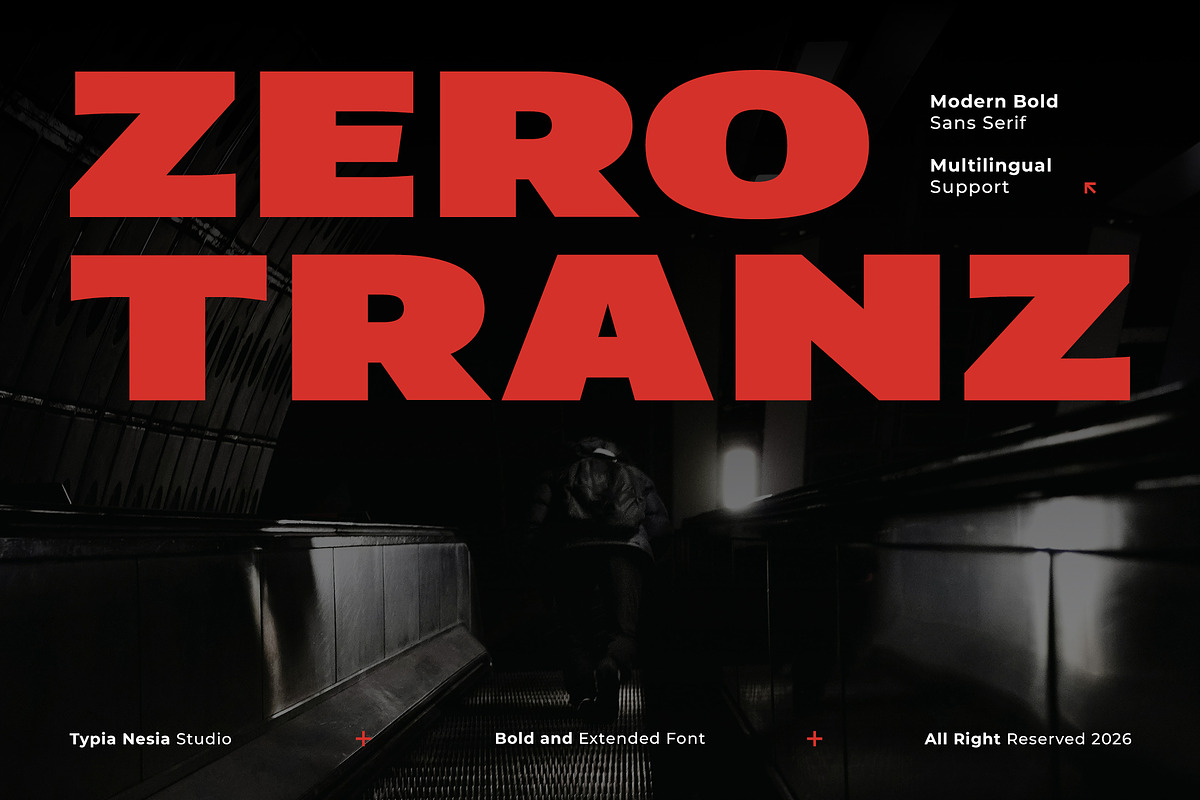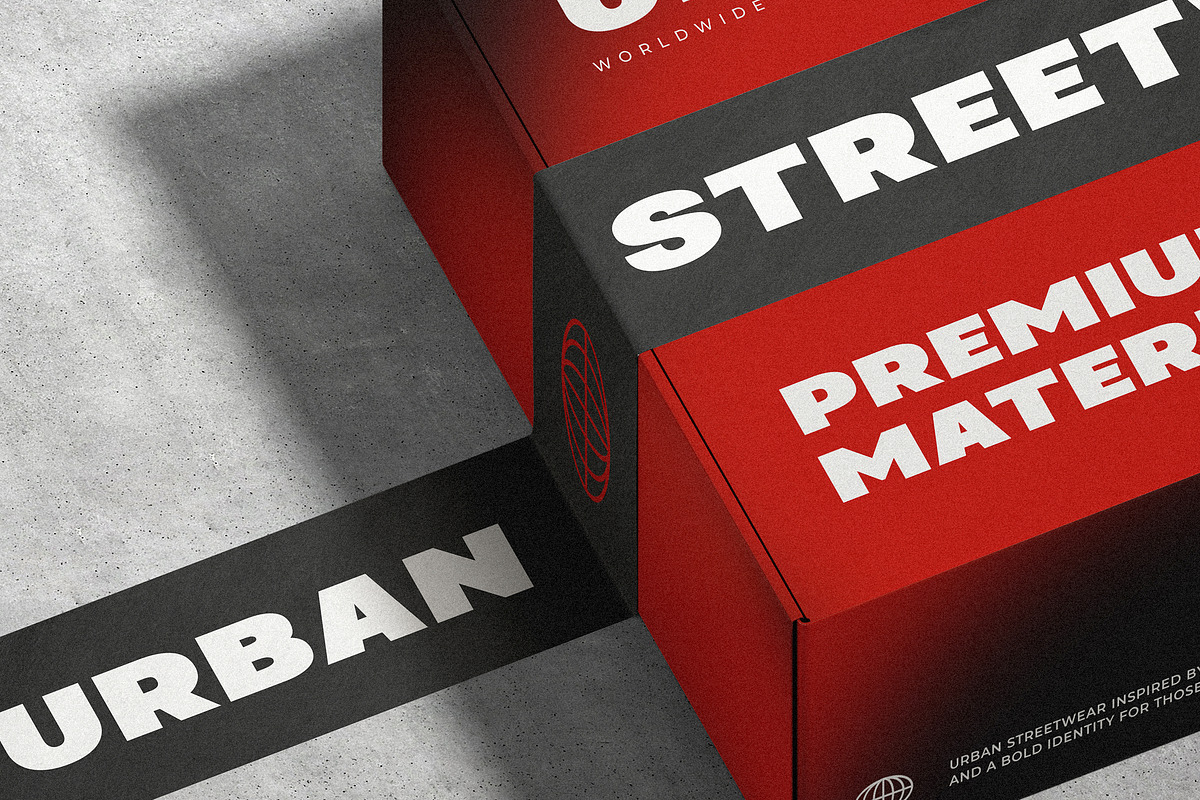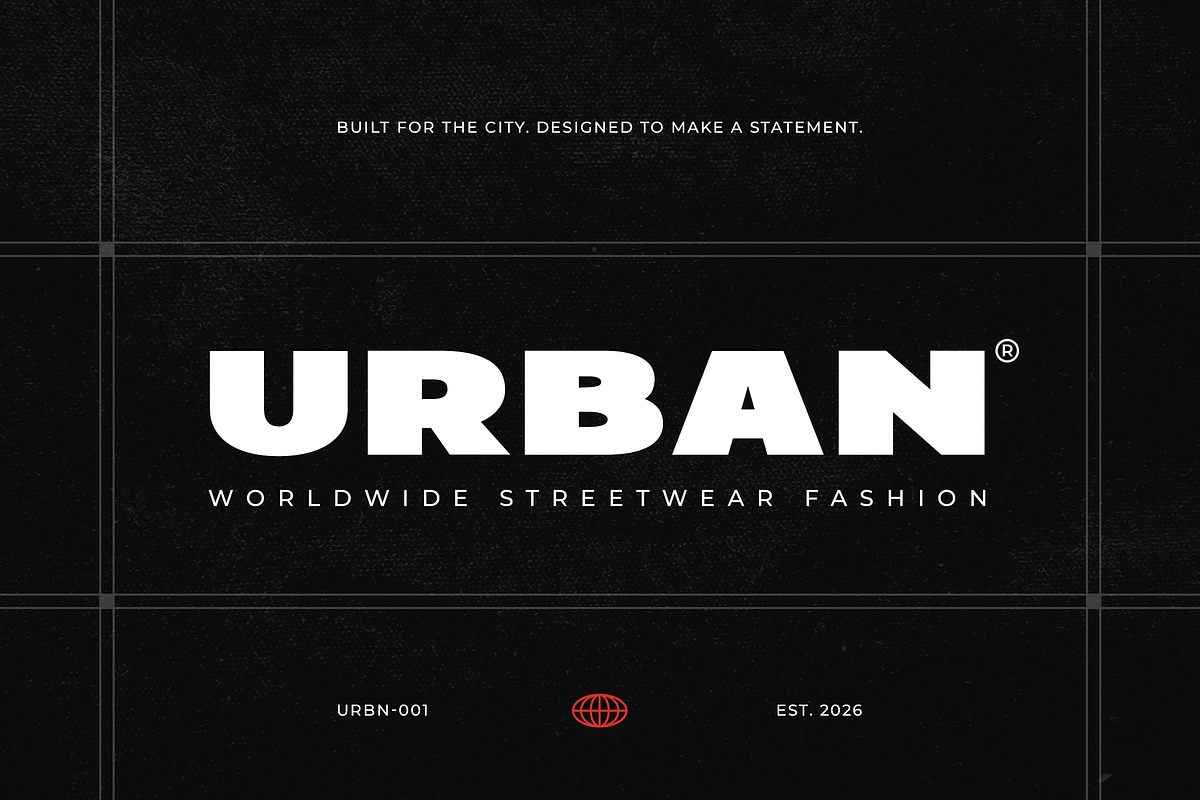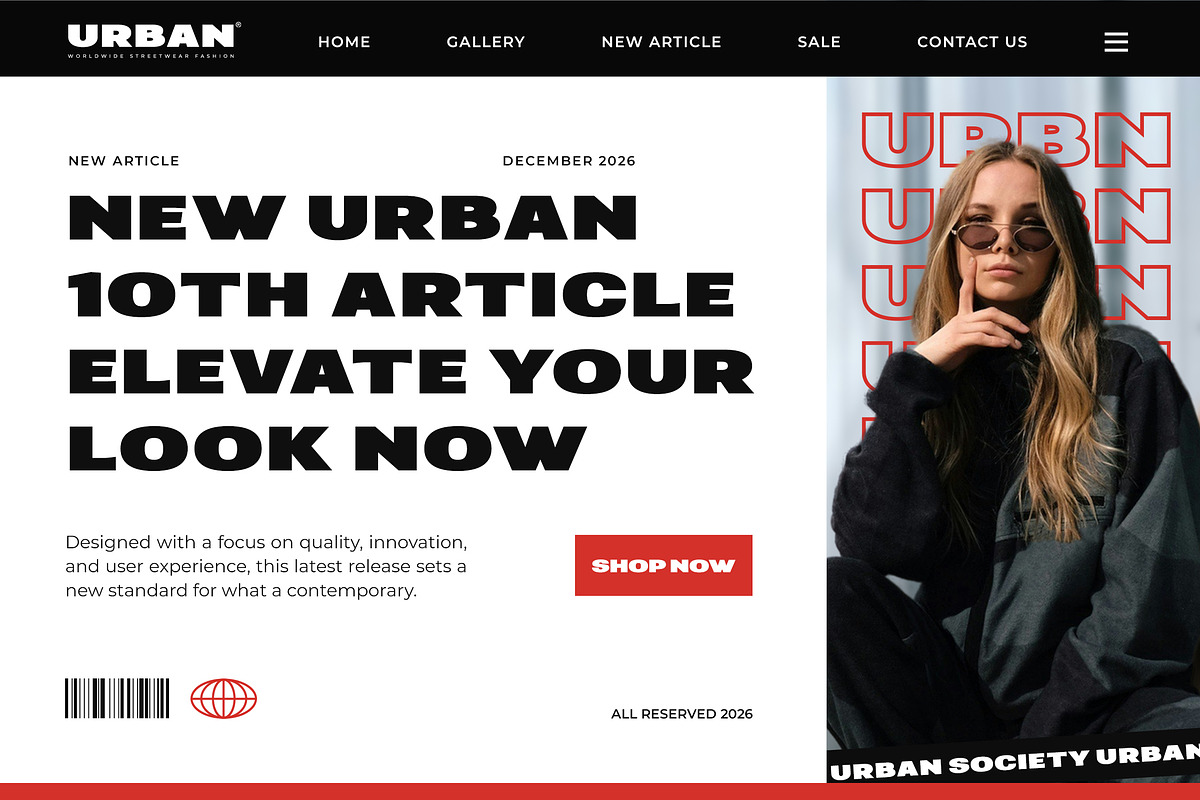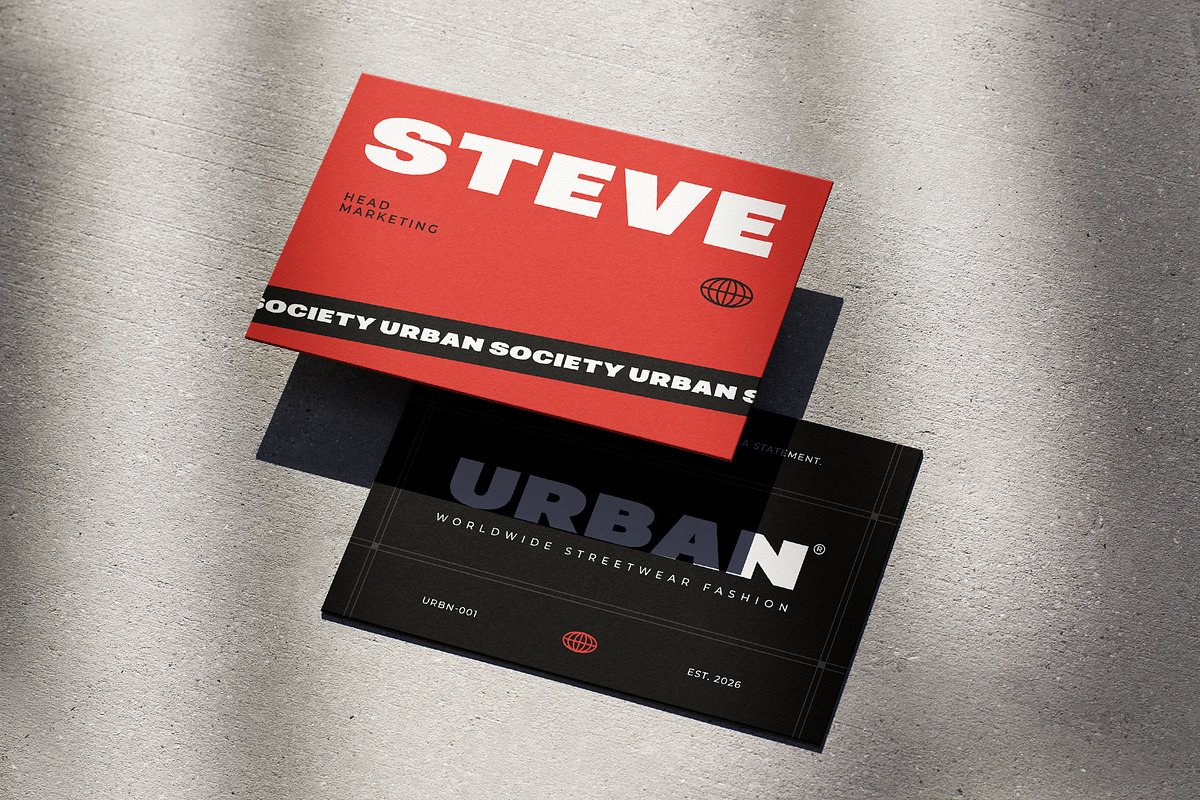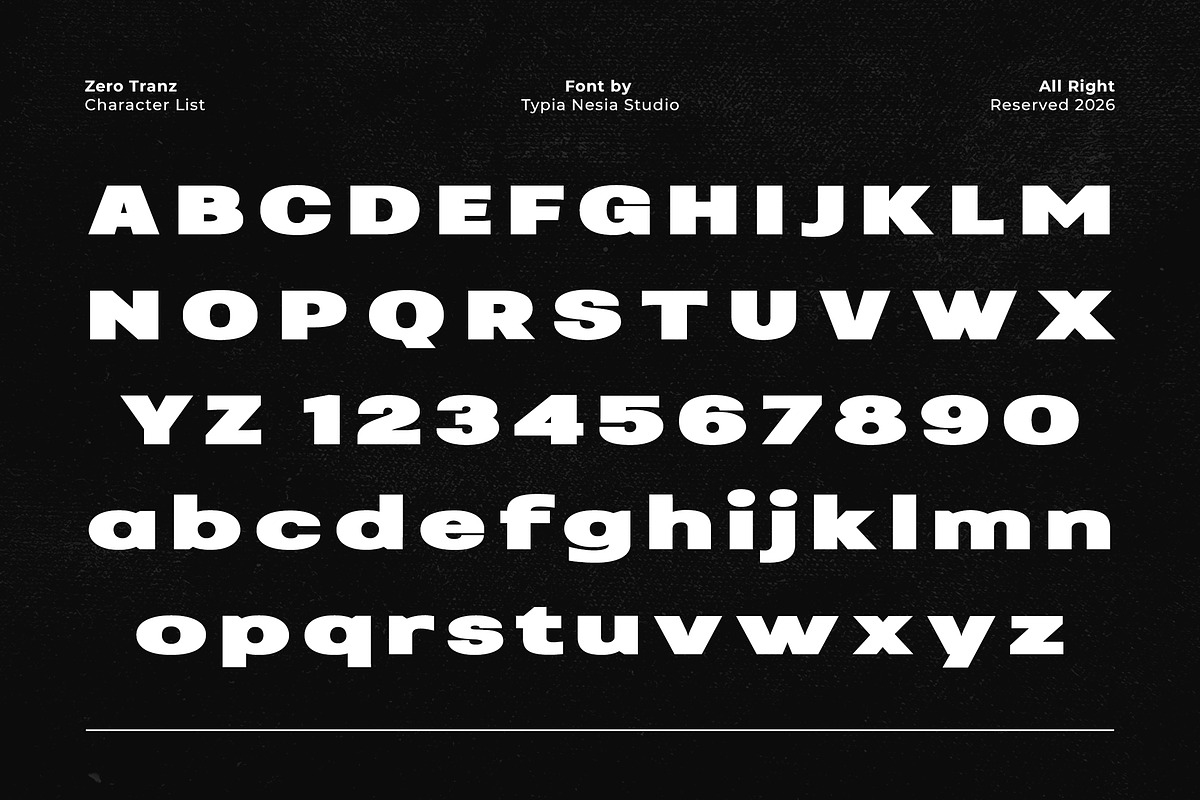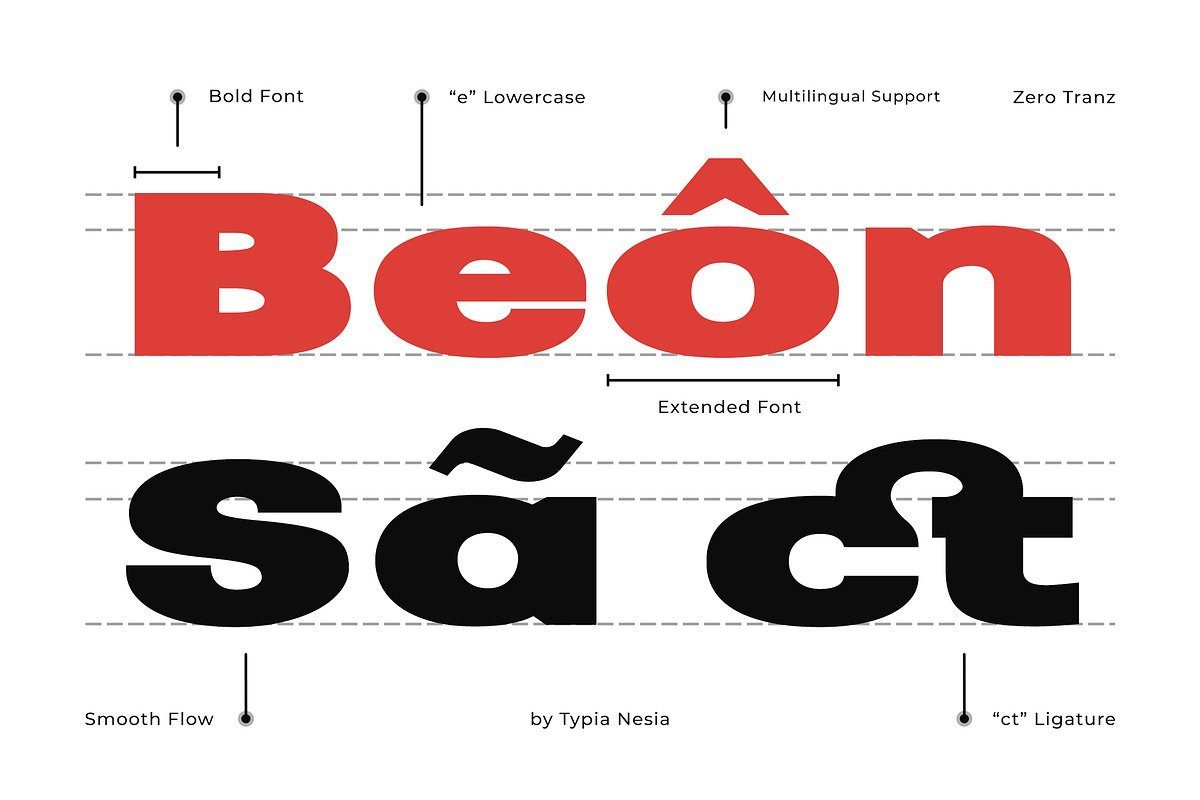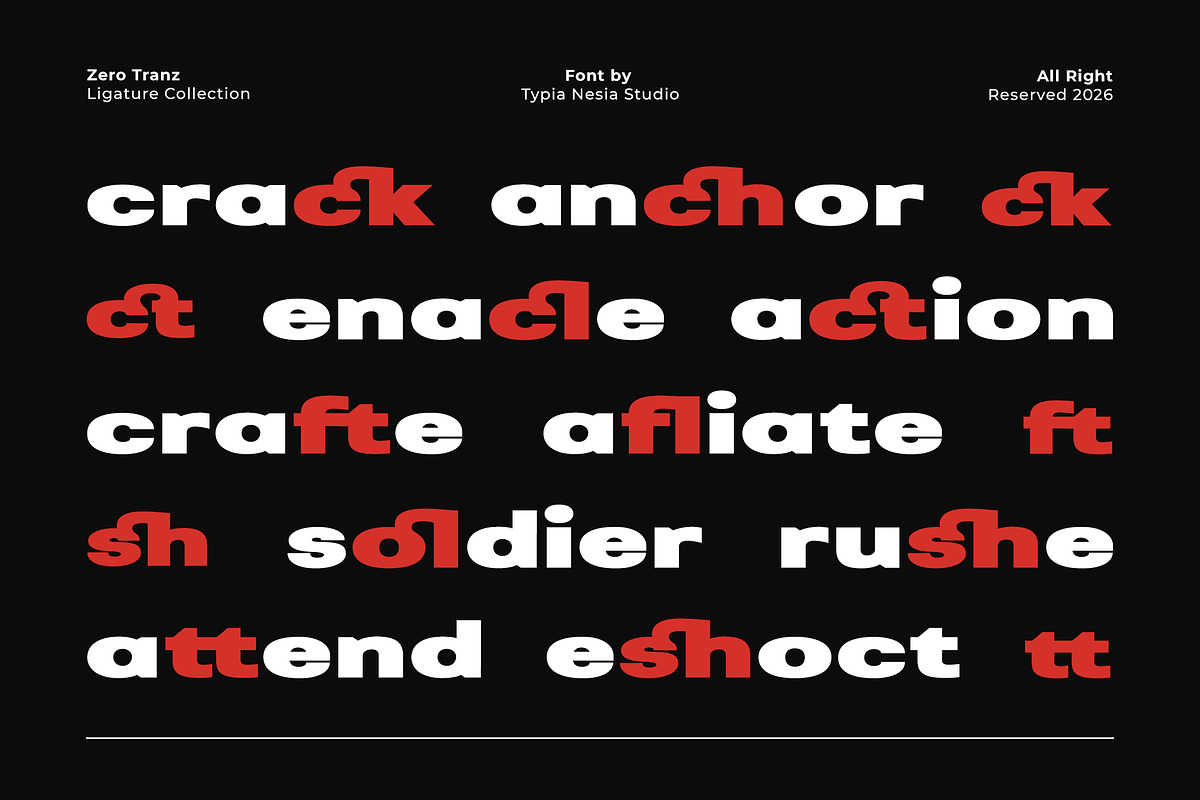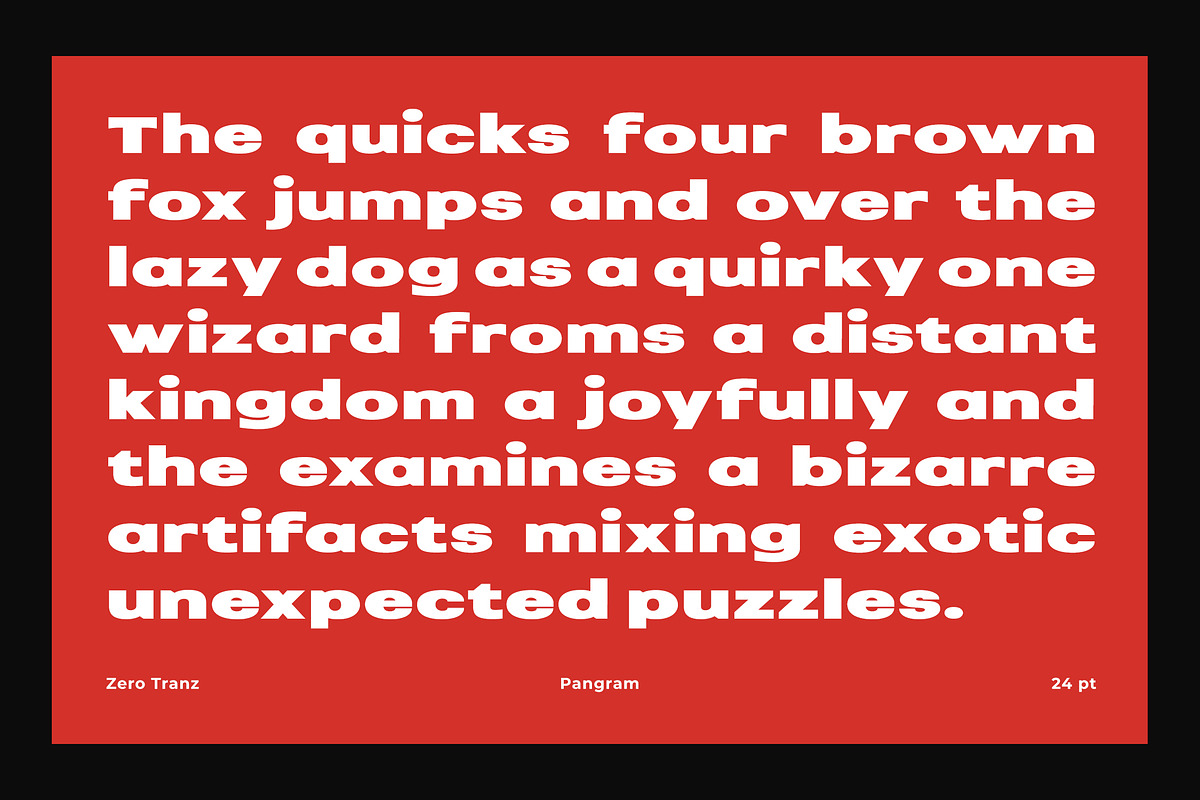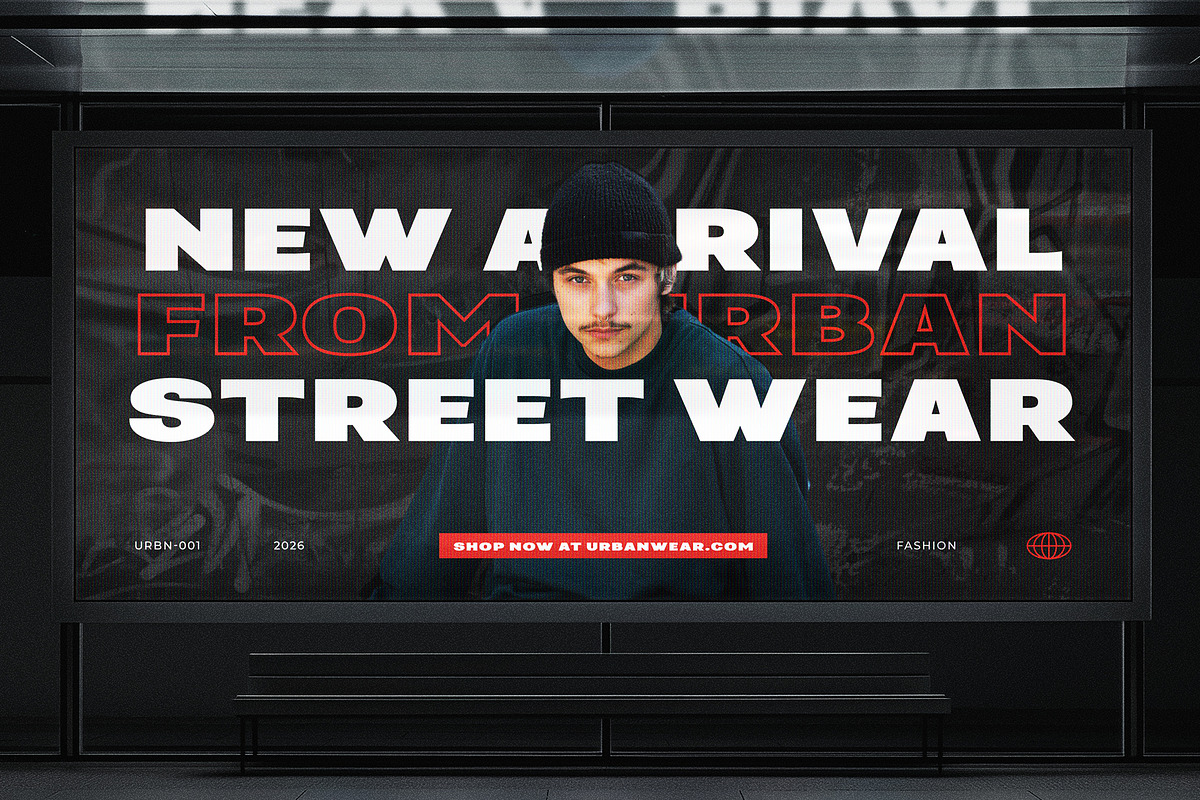
Zero Tranz - Bold Modern Expanded
Zero Tranz - Bold Modern Expanded Sport Sans - Minimal Clean Logo Font Display
Zero Tranz – Bold Modern Expanded Sport Sans Font is a strong and contemporary typeface designed for high-performance visual communication. Built with a modern, minimalist, and expanded sans structure, Zero Tranz delivers a clean, bold, and powerful appearance with a distinct tech and sports influence, making it ideal for logos, headlines, posters, corporate branding, web interfaces, game titles, digital media and any projects that demand a clean, strong, and confident look. With excellent readability and a solid modern character, Zero Tranz helps brands communicate innovation, energy, and professionalism.